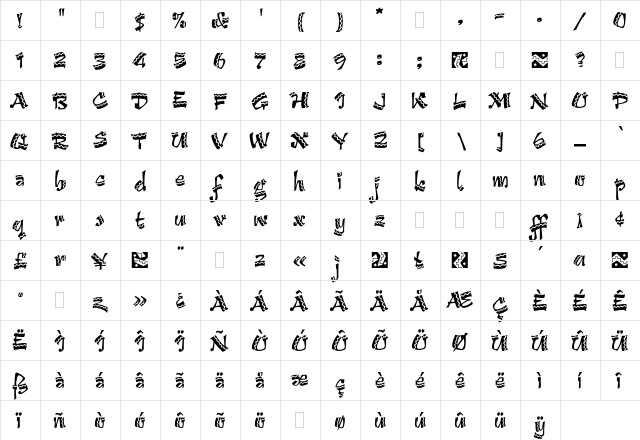
Arriba Arriba Plain
Design Context for Arriba Arriba Typeface
Arriba Arriba is a composed and adaptable typeface that performs quietly and consistently across a wide range of design contexts.